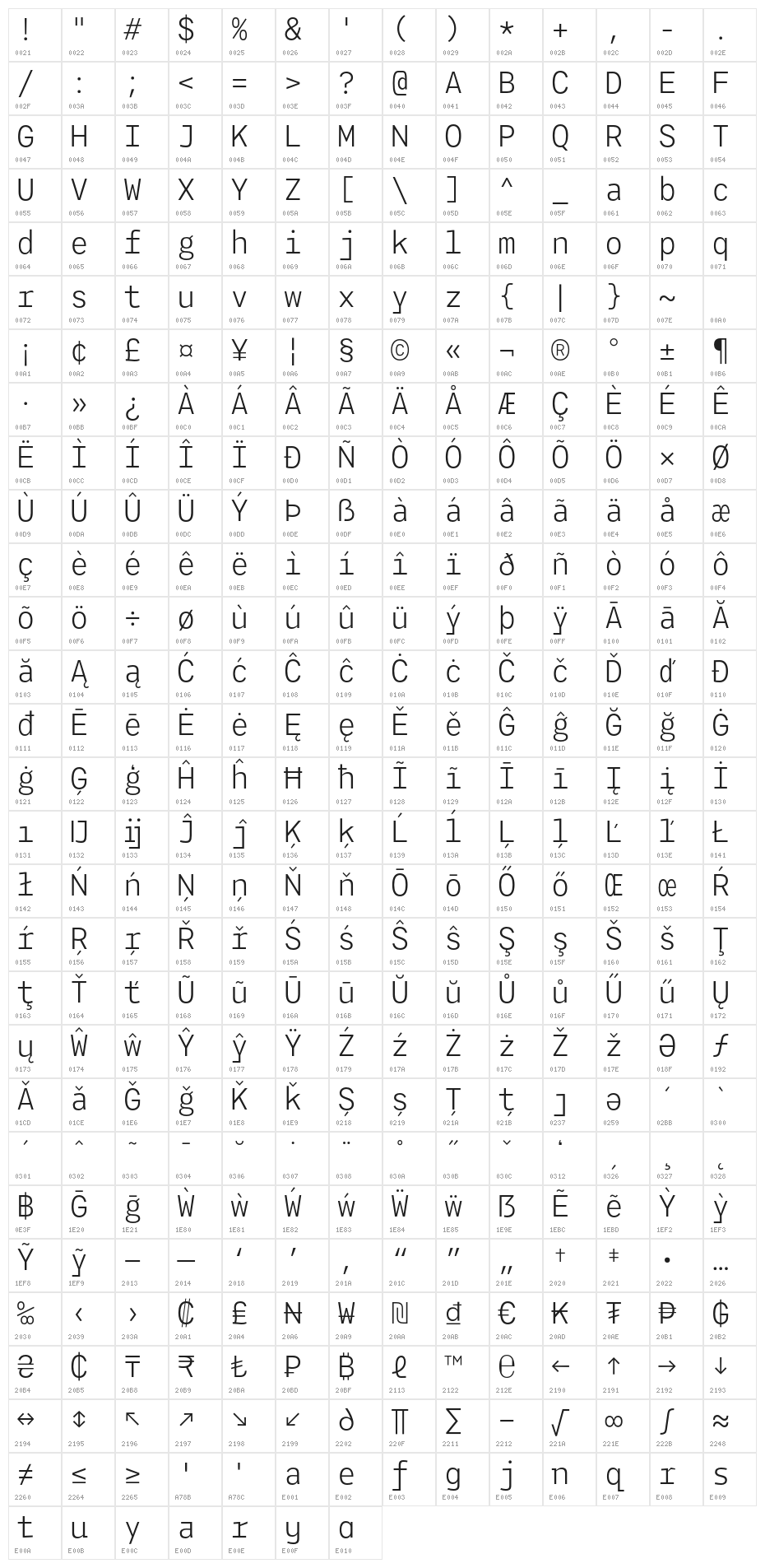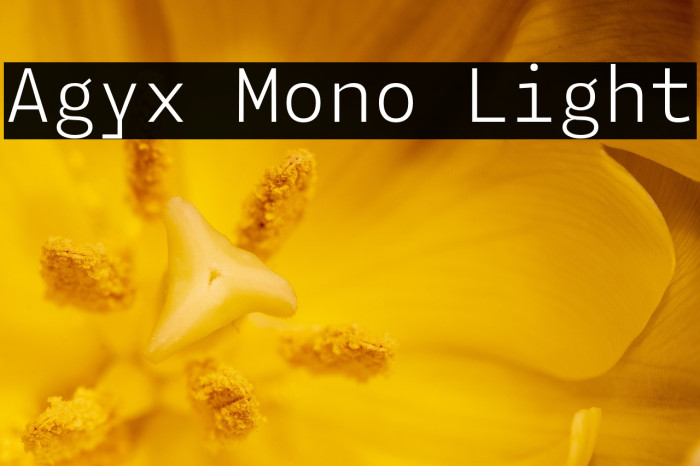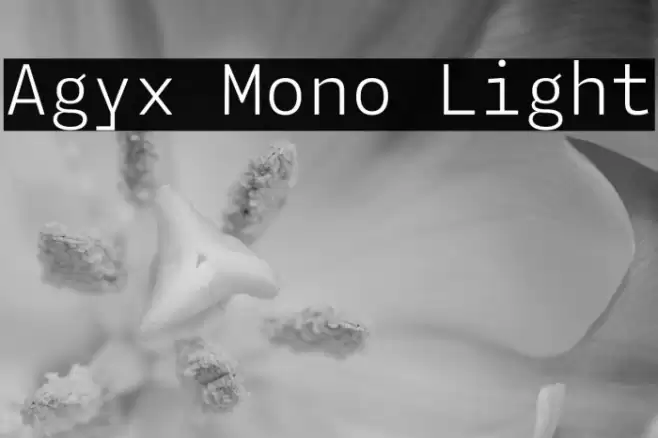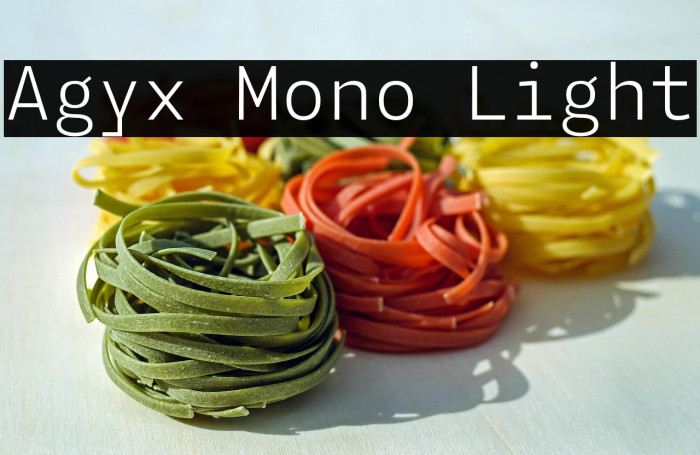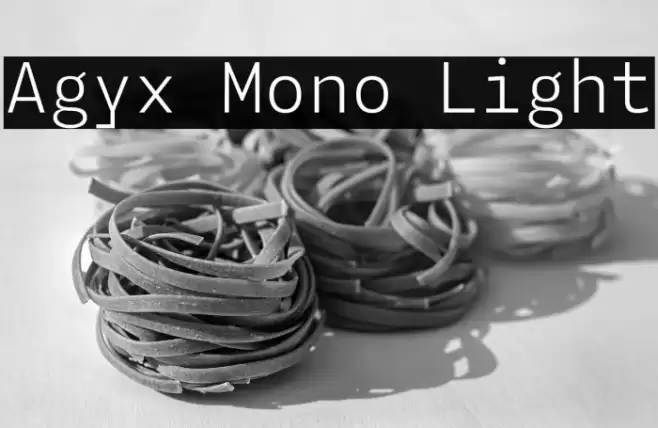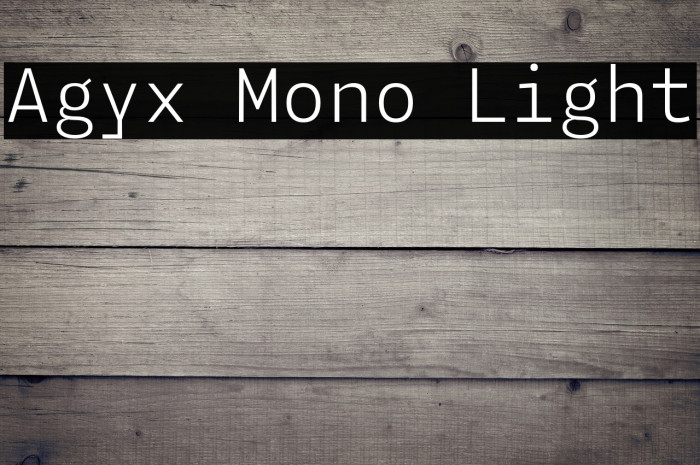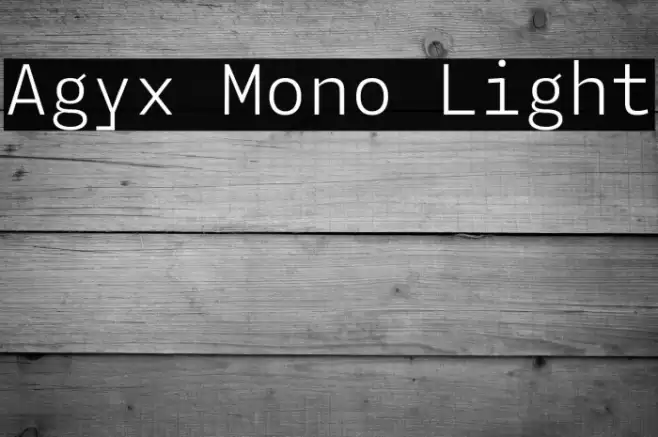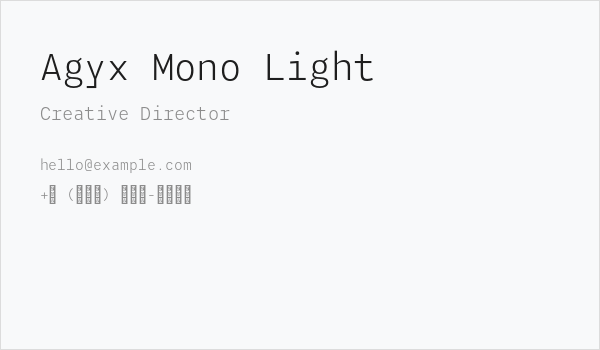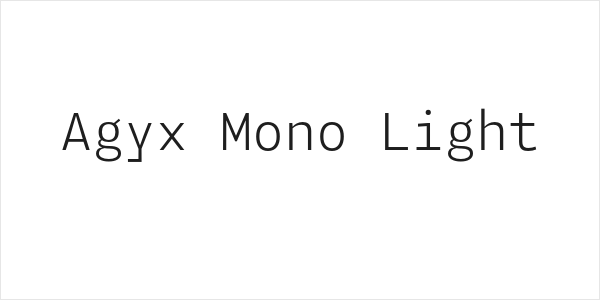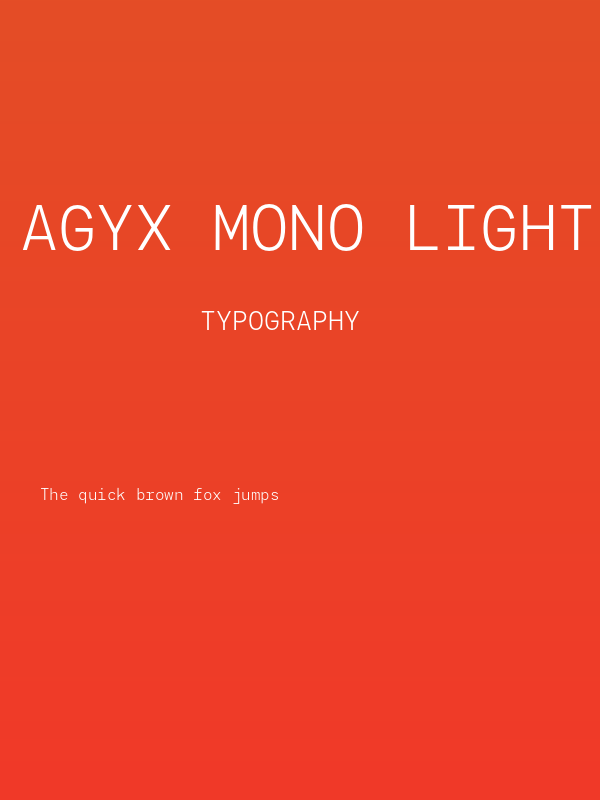
Agyx Mono Light Font
Agyx Mono Light Description
This font is a monospaced typeface characterized by its clean and minimalist design. Each character occupies the same amount of horizontal space, providing a uniform and organized appearance. The strokes are consistent in width, contributing to a balanced and harmonious look. The font features a modern aesthetic with a straightforward and uncluttered style, making it suitable for various digital and print applications. The uppercase and lowercase letters are well-proportioned, and the numerals are clear and easy to read. The special characters are designed to complement the overall simplicity and functionality of the typeface.
| Use Case | Coding, Technical documentation, Digital interfaces |
| Proposed Projects | Ideal for coding environments, technical documentation, and any project requiring a uniform and organized text appearance. |